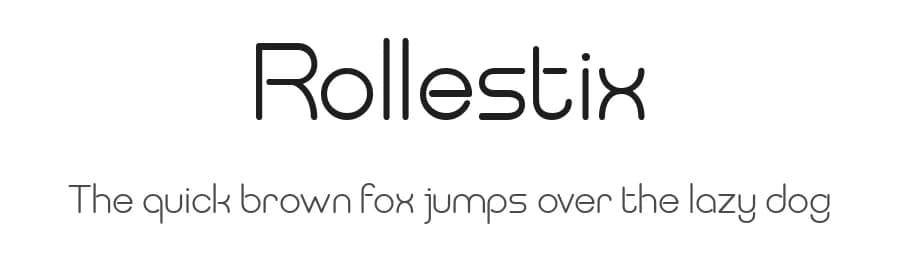
About Rollestix Font
Rollestix Font is a versatile sans-serif font that works for both headings and body text. Pair it with a contrasting serif or slab serif font to add visual interest and a clear distinction between titles and body copy.
Rollestix Font